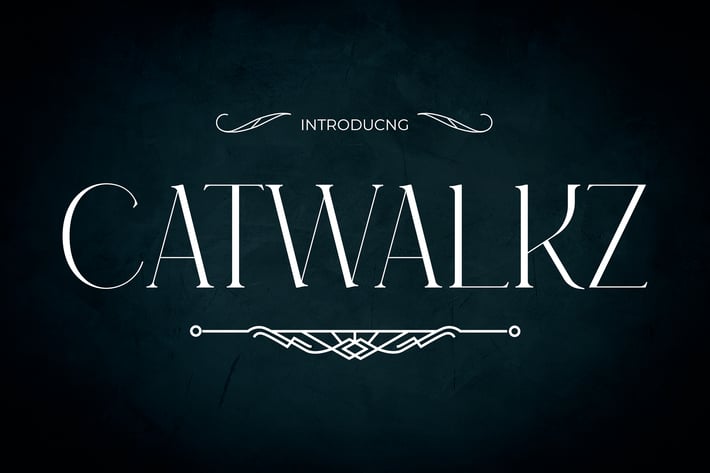
Catwalk - Modern Elegance and Beauty Font
CATWALKZ
CATWALKZ is a high-contrast luxury display typeface designed for fashion-forward branding and elevated editorial layouts. With long, elegant stems and stylized terminals, it reflects the clean lines and refined drama of a runway collection. Its distinctive proportions and subtle flair evoke a sense of prestige, glamour, and cosmopolitan edge.
This typeface is perfect for designers crafting content in beauty, fashion, lifestyle, or luxury product spaces. It delivers bold elegance and visual finesse across digital and print.
From fashion magazine covers and perfume packaging to runway promos and beauty blog headers, CATWALKZ is tailored for brands that live in the spotlight. Its sleek posture and upscale curves communicate confidence, class, and modern sophistication—ideal for any product or brand needing high visual appeal and stylistic edge.
CATWALKZ helps luxury designers, fashion creatives, and beauty entrepreneurs express taste, refinement, and bold identity.
Key Features :
High-contrast vertical strokes with sculpted elegance
Stylized terminals with graceful curvature
Fashion-forward letterform spacing and flow
Excellent for headlines, logos, beauty branding, fashion editorials
Balances modern edge with classic typography style
Basic Latin A-Z and A-z
Perfect for creative studios, fashion brands, illustrators, and beauty product designers looking to elevate their typographic game.